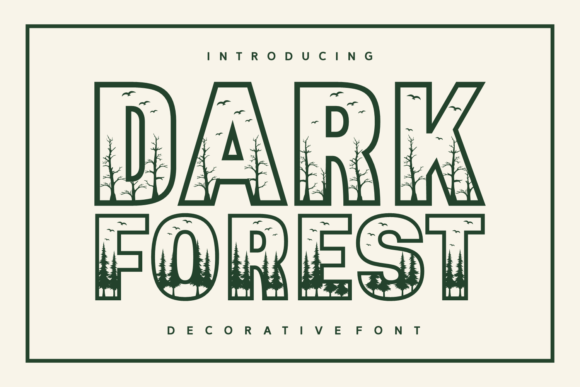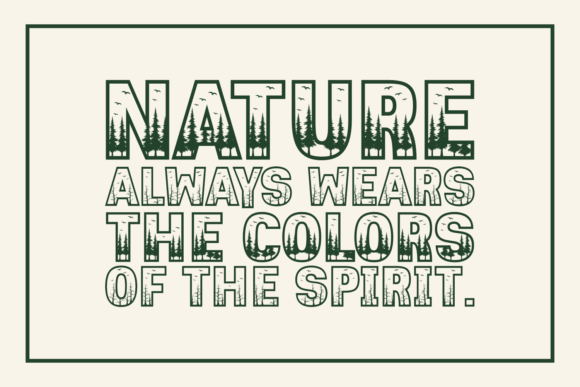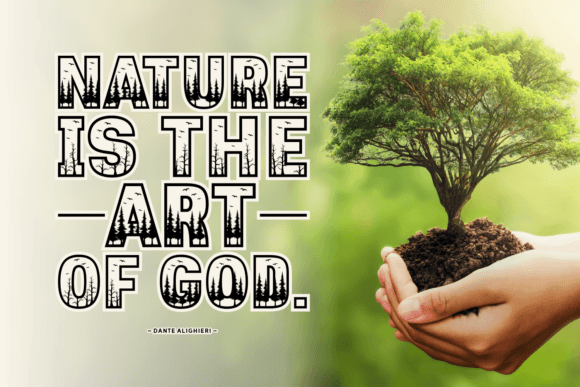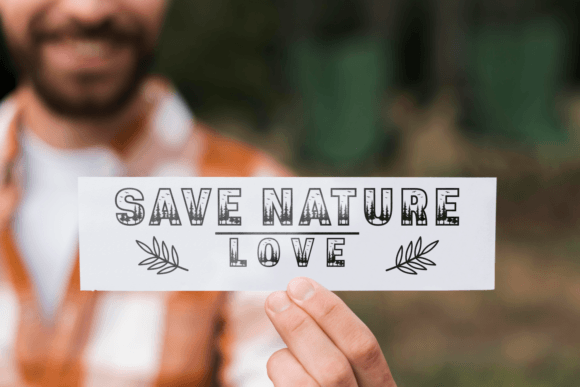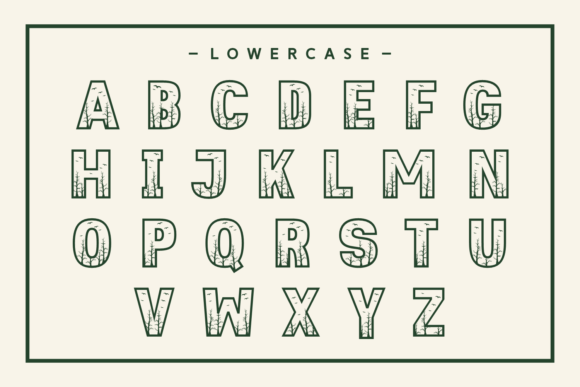
Dark Forest Font
Dark Forest is a decorative font that is perfect for adding a unique and stylish touch to any design. It is often used to create eye-catching titles, logos, and other graphic elements. It’s a great way to bring a touch of creativity to your work!